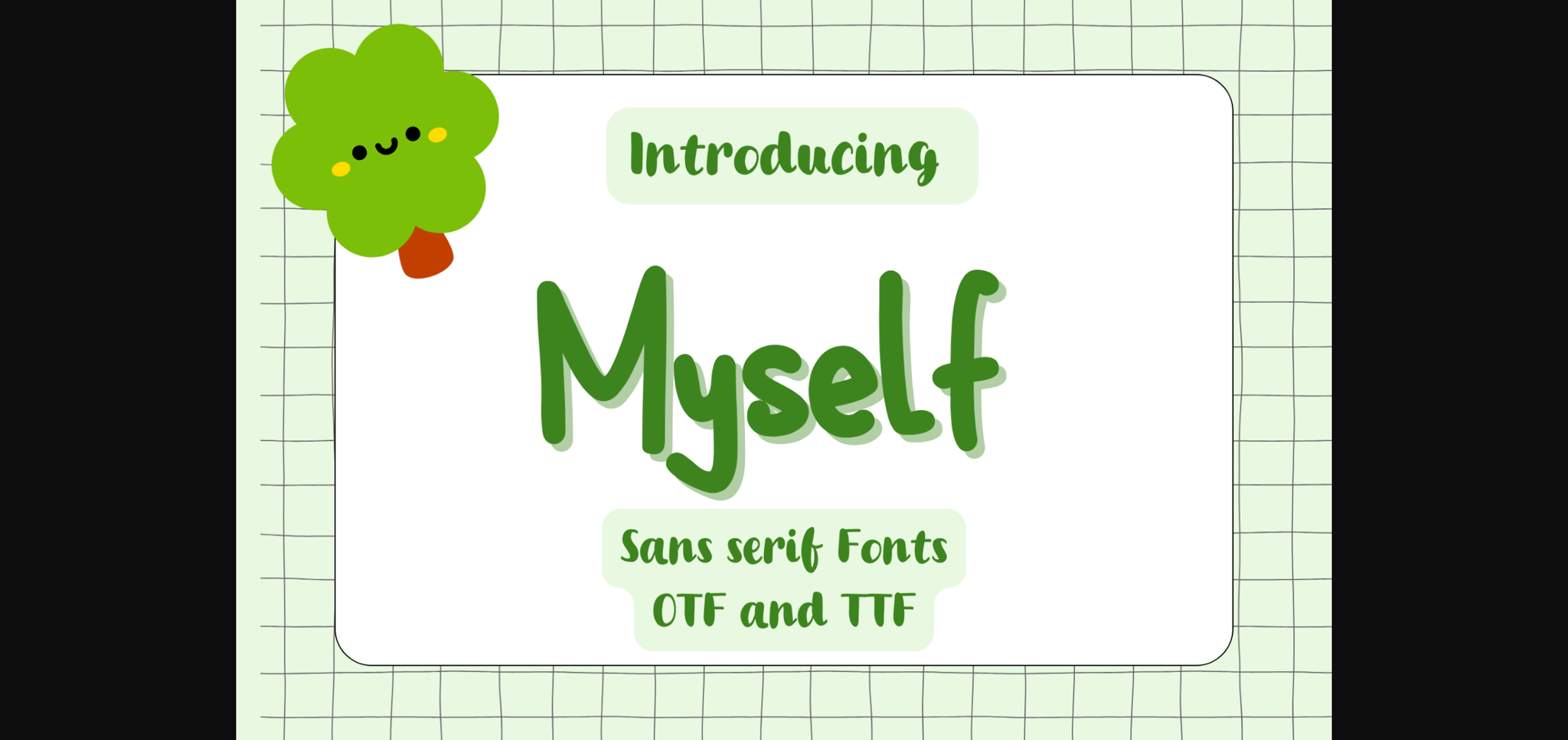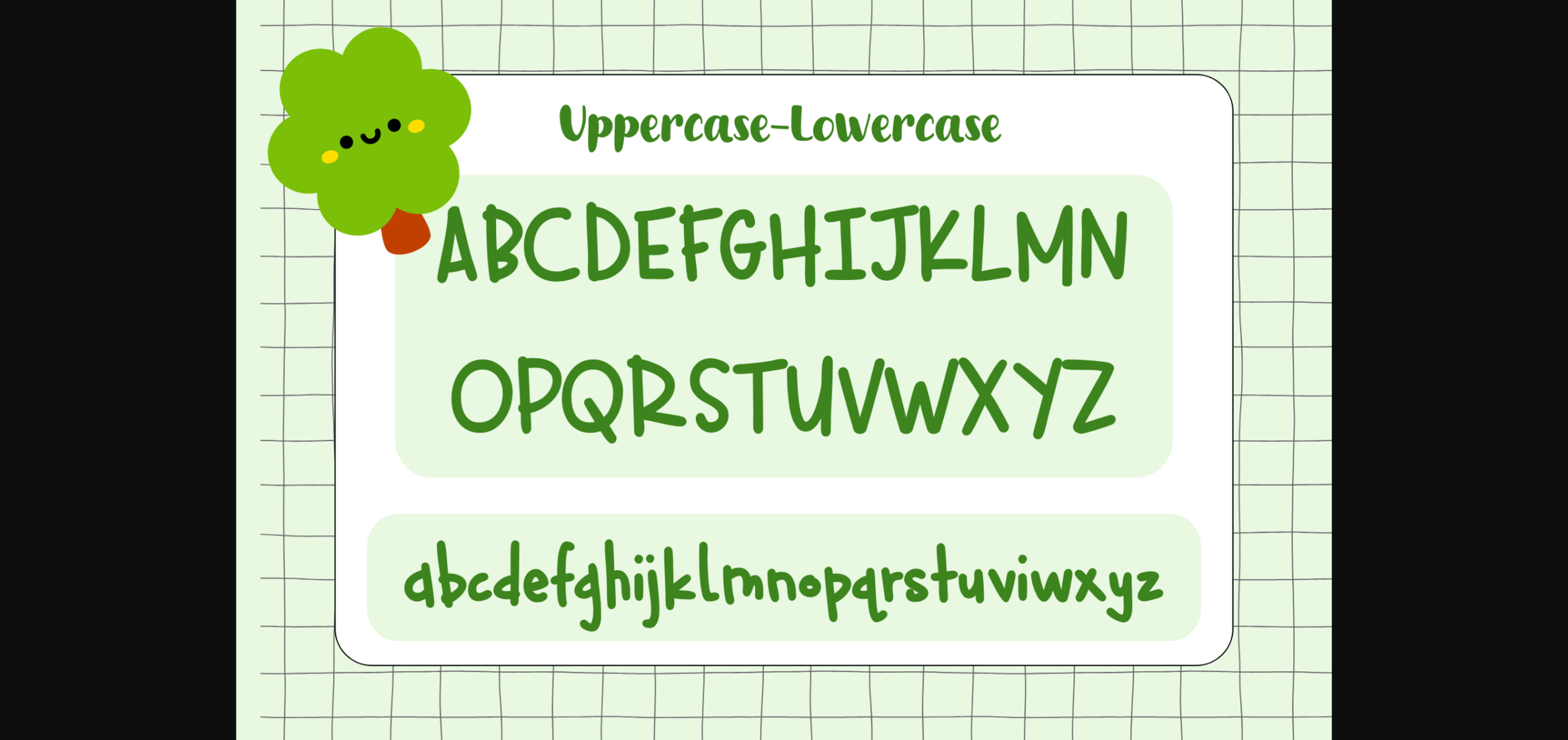
About Myself Font
Myself font is a cute and neat sans-serif font. Perfect for card designs, crafts, digital designs, presentations, social media designs, digital planners, and many more.